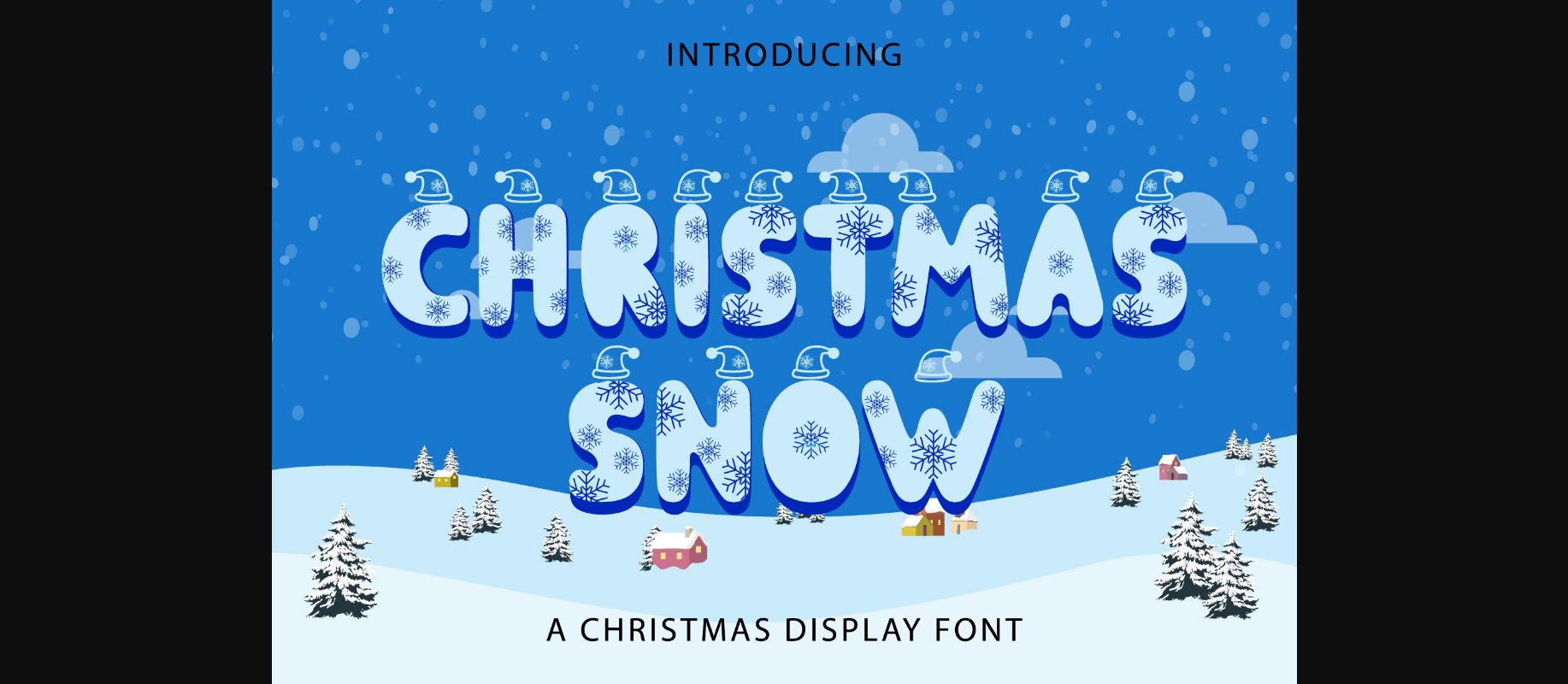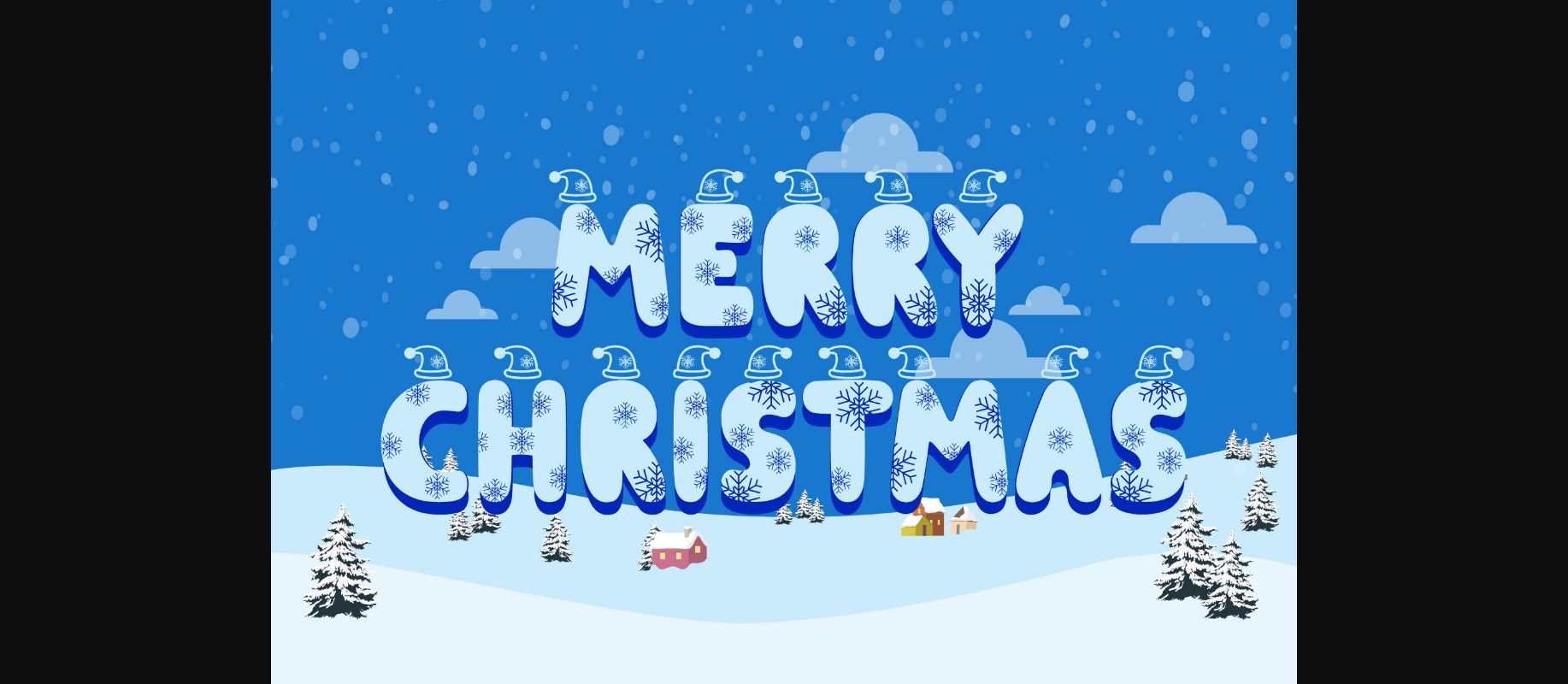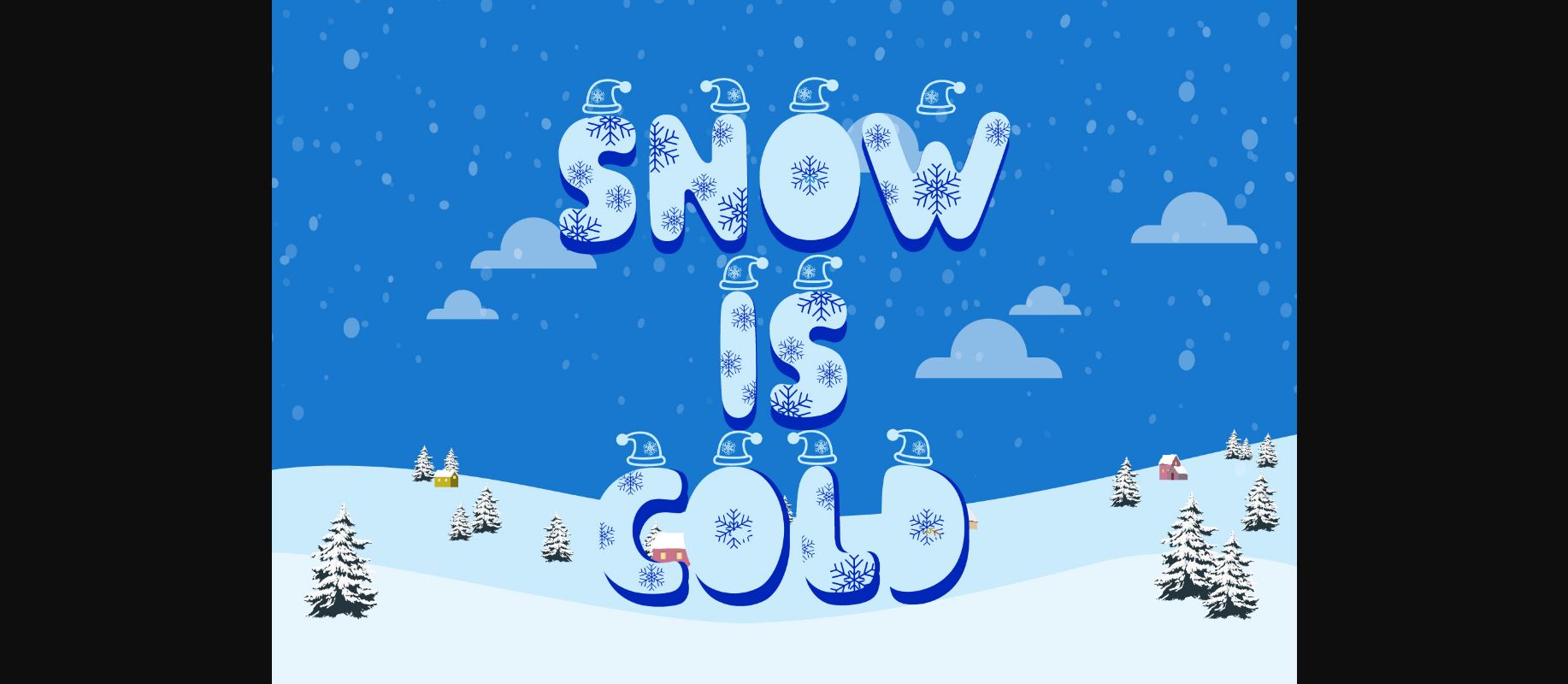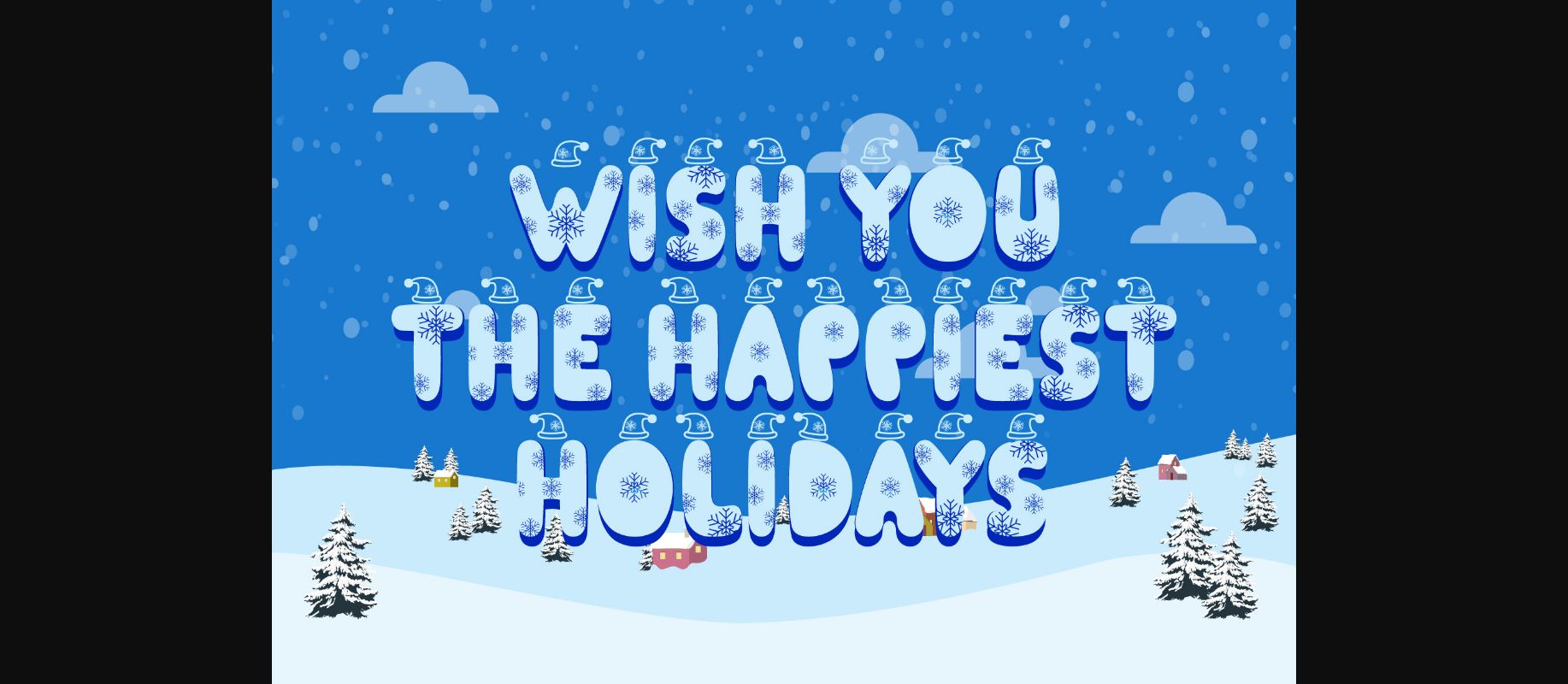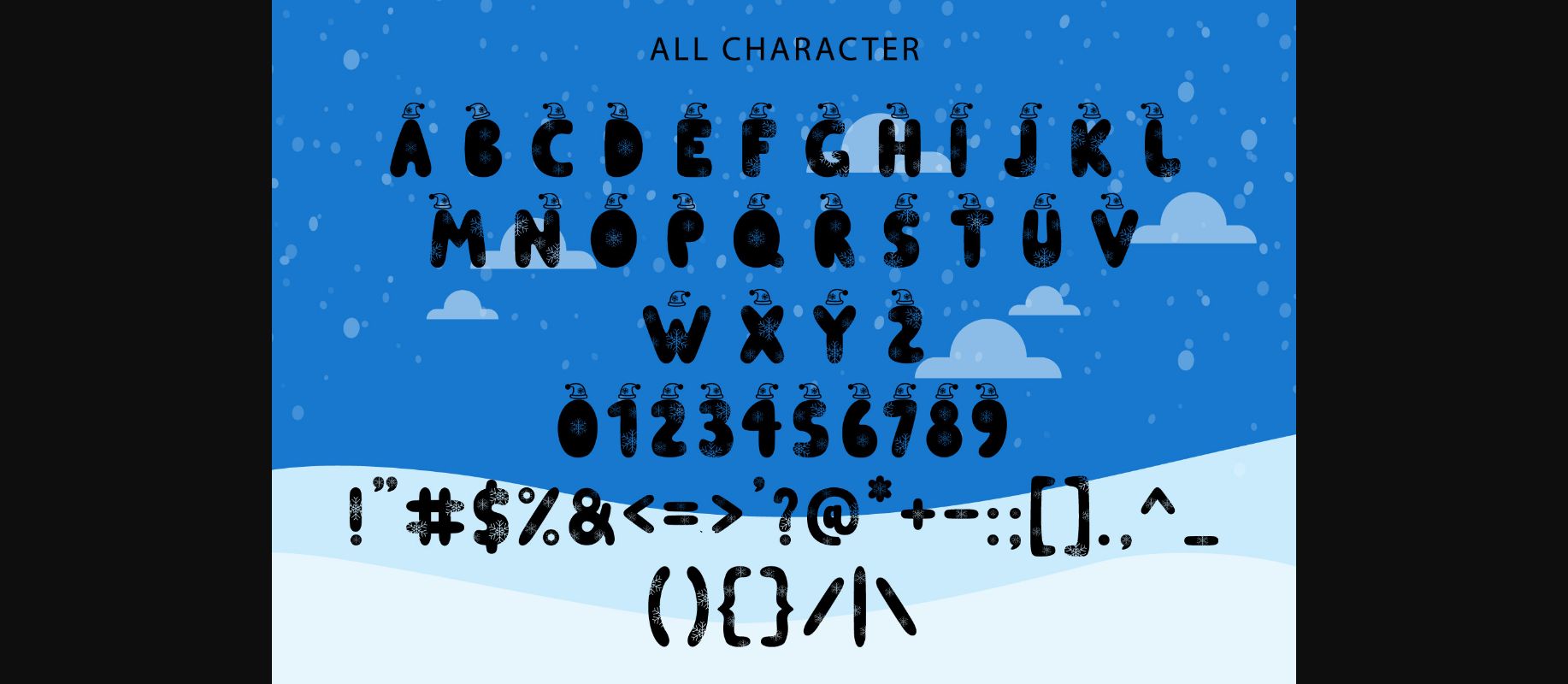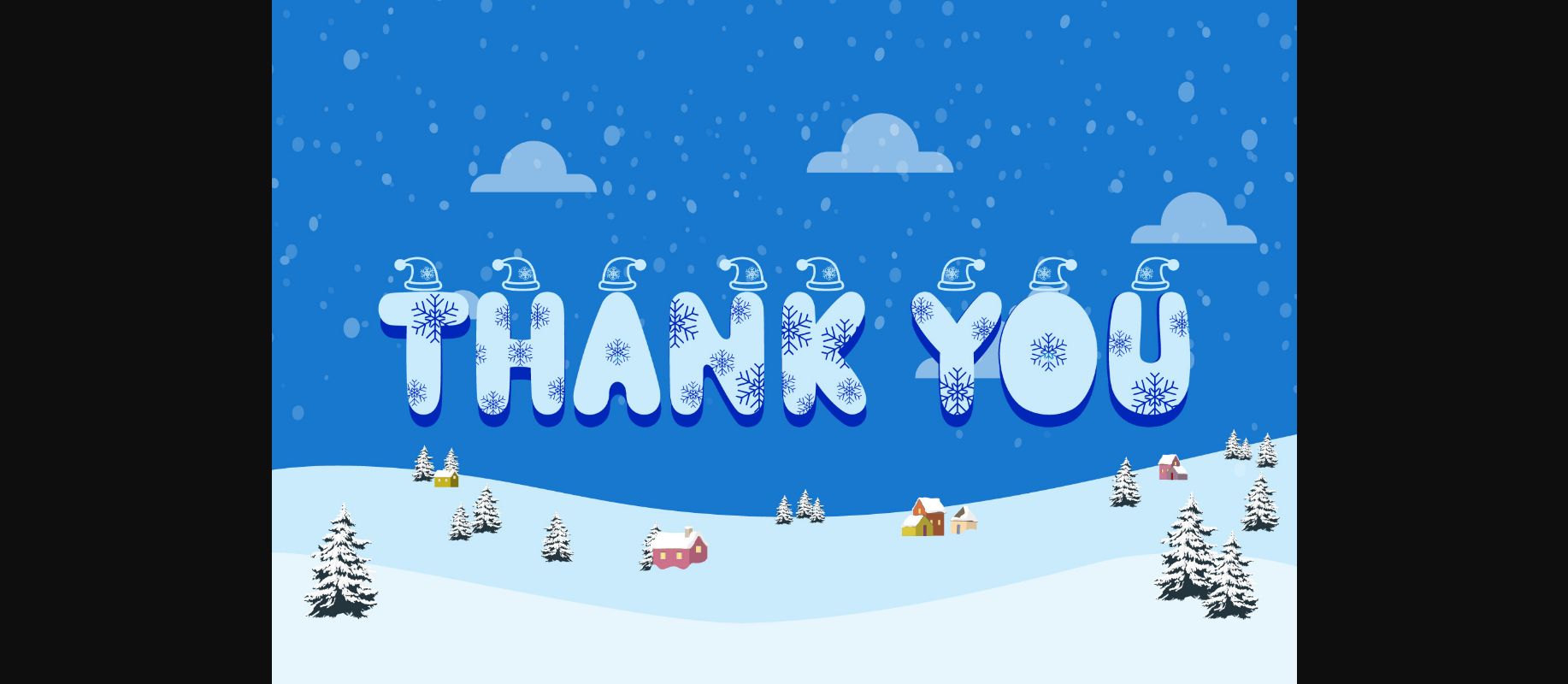
Christmas Snow Font
Christmas Snow is a versatile, stylish, groovy, and playful retro display font perfect for a wide spectrum of applications such as greeting cards, headlines, and many more! Add it to any of your creative projects, and it will give them a romantic and exquisite feel.